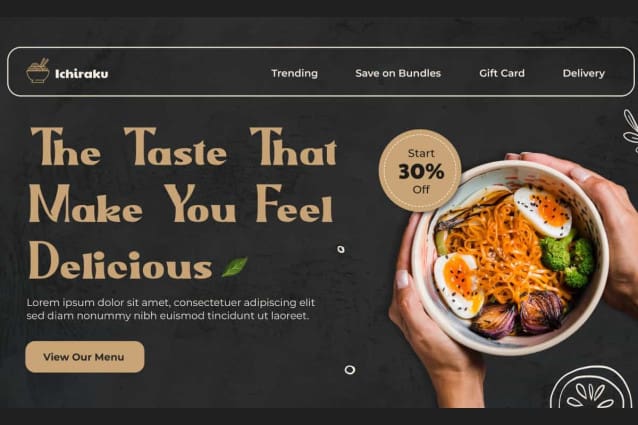
Apricot Milk Font
Apricot Milk font is a fun serif display font with a friendly and bold style that will give a handmade and more dynamic touch. This font is suitable for brand logo, custom design, invitation, magazine cover, menu, poster, product packaging, screen printing, signage, social media post, stationery, sticker, website, and more!
Apricot Milk font includes full set for Uppercase and Lowercase Basic Characters, Numbers, Punctuation and Symbols. The font looks friendly and welcoming with fairly bold letters. This font will create the perfect font so that it will be suitable for advertisement, bakery, beauty product, cafes, crafts, event or wedding organizer, fashion, photography, restaurant, spa, travel agency, etc.